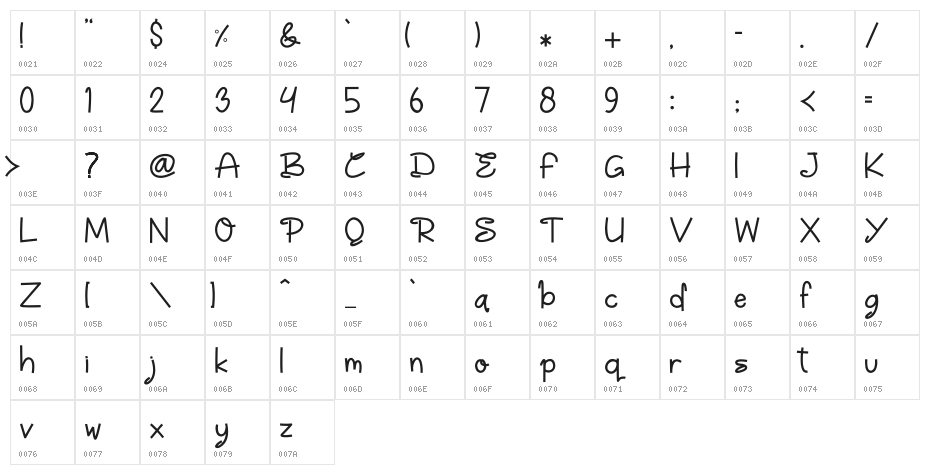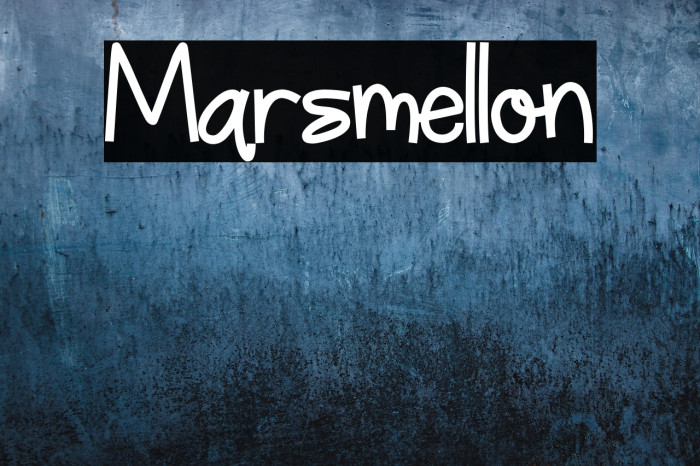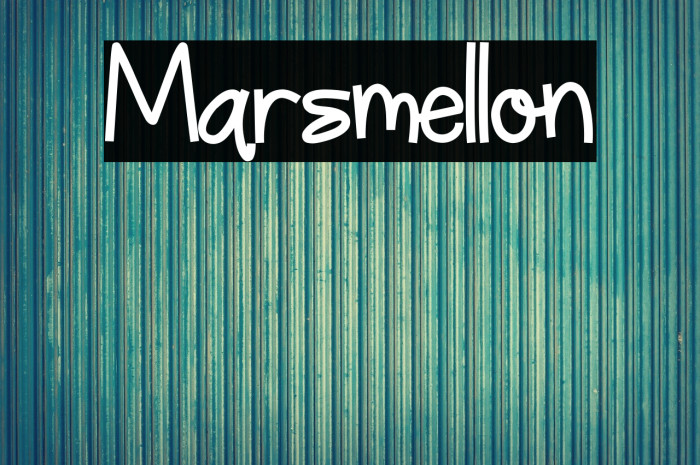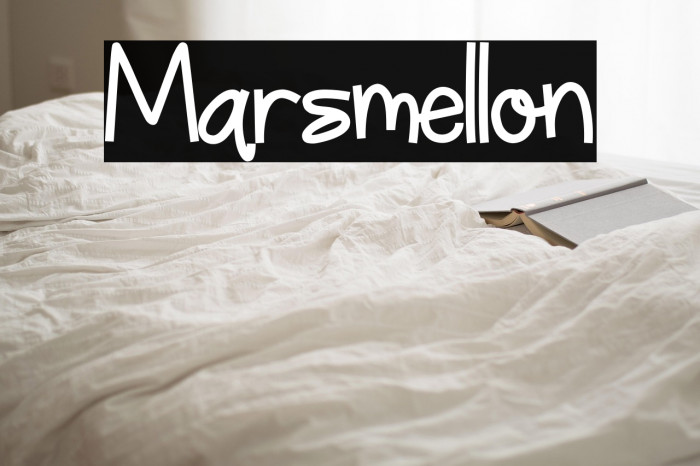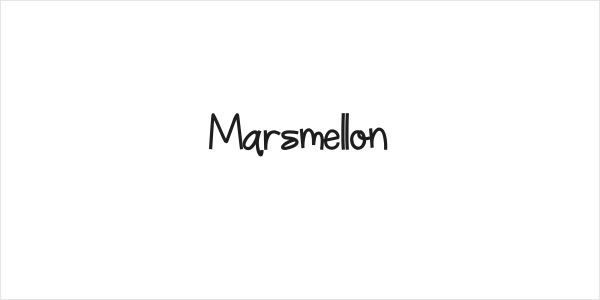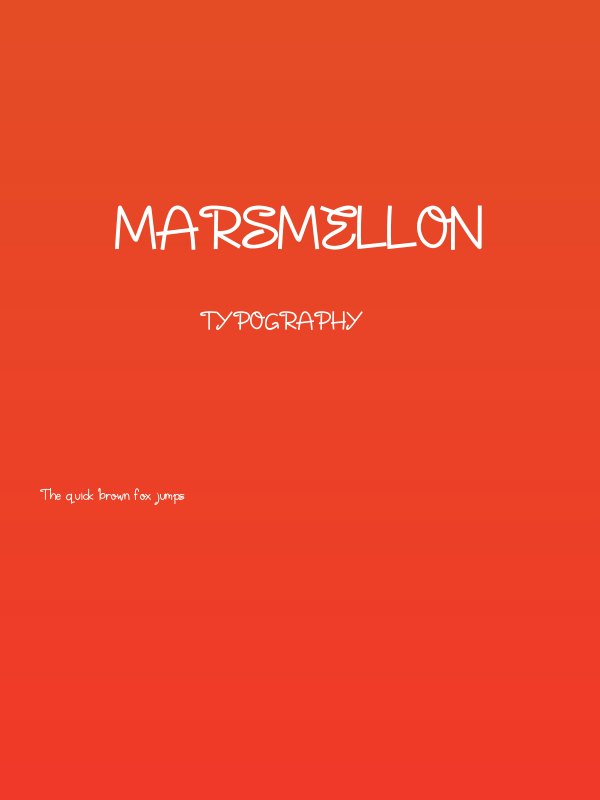
Marsmellon Font
Marsmellon Description
This playful and whimsical font features a unique, hand-drawn style with exaggerated curves and loops. The uppercase letters are bold and dynamic, with a slight tilt that adds a sense of motion. The lowercase letters maintain the same playful character, with some letters extending below the baseline, adding to the font's quirky charm. Numbers and special characters are equally expressive, making them stand out in any design. The overall appearance is casual and friendly, perfect for projects that require a touch of fun and creativity.
| Proposed Projects | Ideal for children's books, playful branding, greeting cards, and creative posters. |